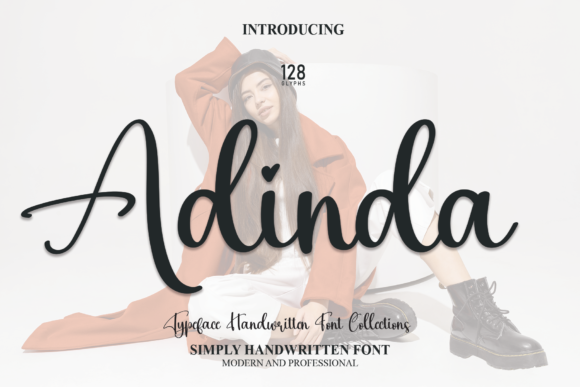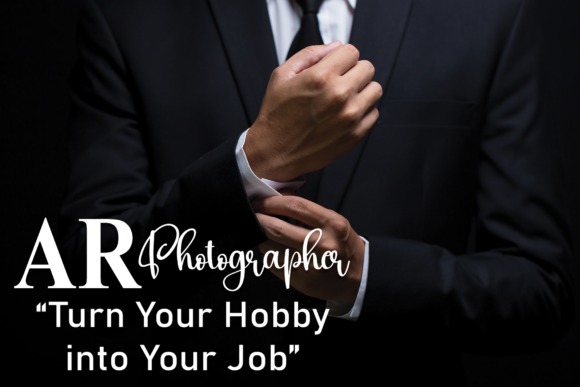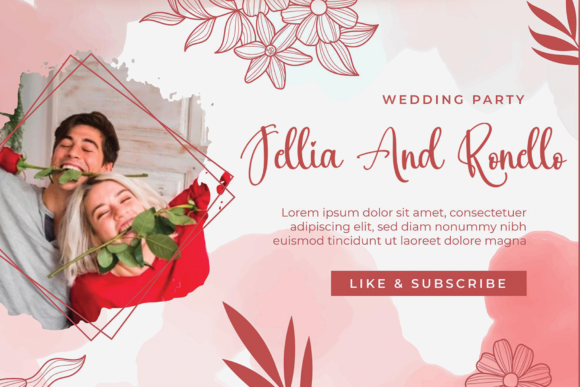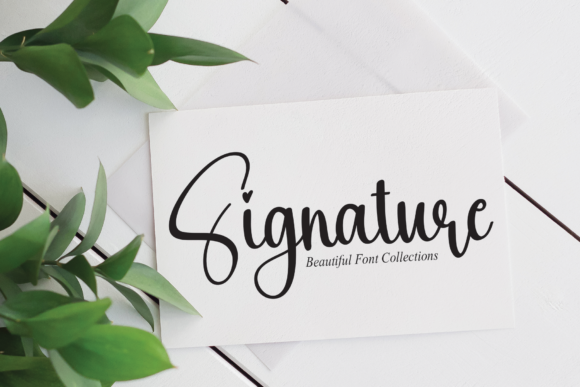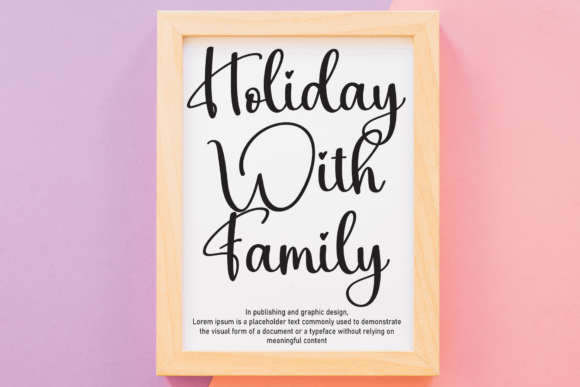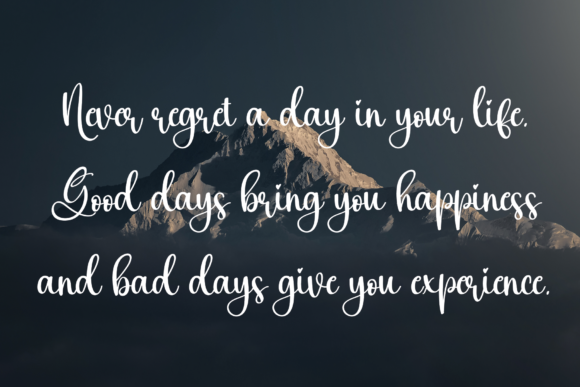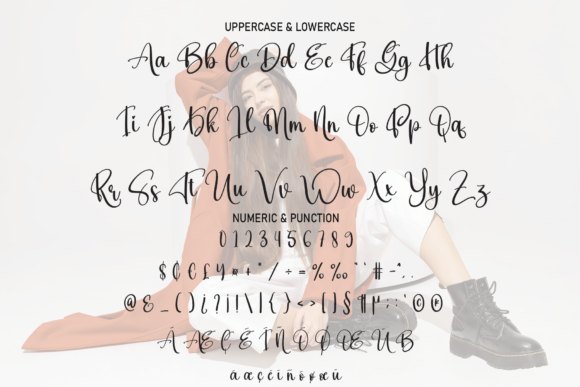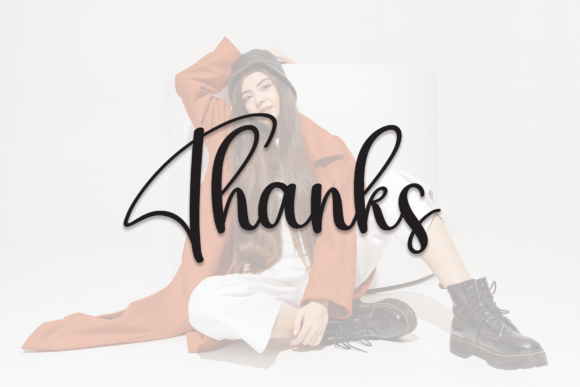
Adinda Font
About Adinda Font
“Adinda” emerges as a classic and straightforward handwritten script font, thoughtfully crafted with a touch of randomness and freedom. Its versatility positions it as an excellent choice for a diverse range of creative design projects across various industries and digital platforms.
In the realm of branding, “Adinda” stands out as a compelling option for logotypes. The font’s classic and handcrafted aesthetic imparts a timeless quality to brand identities, injecting them with an authentic and personal touch. Its adaptability seamlessly extends to headline fonts, enabling it to capture attention and convey messages with a genuine and charming character.
The font integrates seamlessly into corporate identity and brand development, striking a harmonious balance between classic and free-spirited script to enhance visual representation. Within the apparel industry, “Adinda” introduces a stylish and personalized element, making it a fitting choice for labels, tags, and promotional materials.
Applied to promotional materials such as posters, “Adinda” introduces a classic allure, creating designs that are both visually striking and relatable. Its versatility extends to various entertainment realms, including music, movies, and games, where it contributes a timeless and distinct aesthetic to album covers, movie posters, and game graphics.
Within the print media landscape, spanning magazines, books, comics, and cartoons, “Adinda” imparts a simple yet elegant quality to headlines and titles. Its handcrafted charm adds character to illustrated storytelling, making it a versatile option for creative publications.
In the digital sphere, “Adinda” finds its place on YouTube and Instagram, providing a friendly and approachable appearance for channel branding, video titles, and social media posts. Its readability and classic style make it an apt choice for website design, ensuring a cohesive and visually appealing online presence.
In conclusion, “Adinda” transcends being merely a font; it is a versatile design tool that seamlessly fits into logotypes, headlines, corporate identities, the apparel industry, posters, music, movies, games, magazines, books, comics, cartoons, YouTube, Instagram, and websites. Its classic simplicity, coupled with a touch of randomness, renders it a valuable asset for a wide array of creative projects.